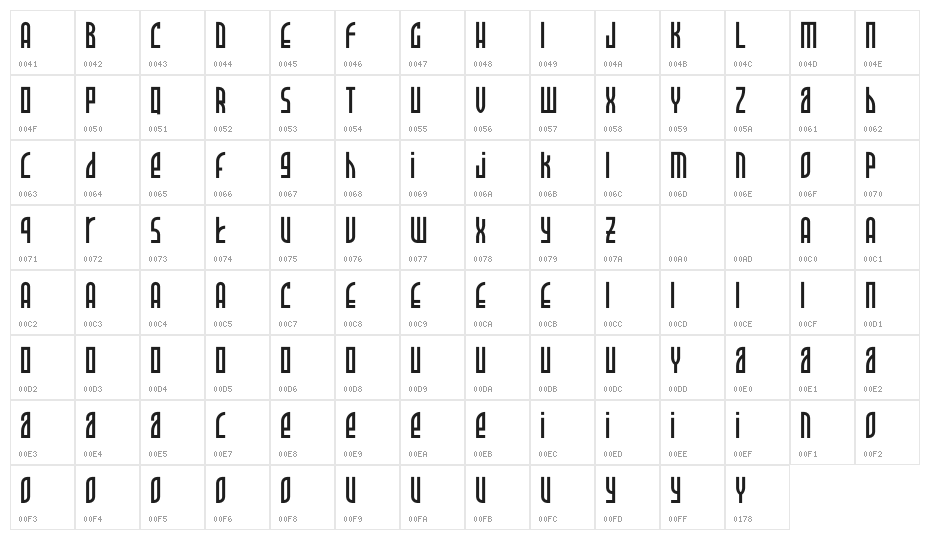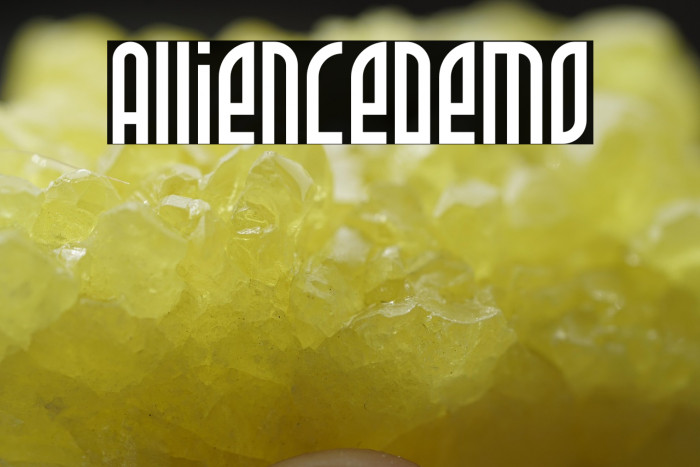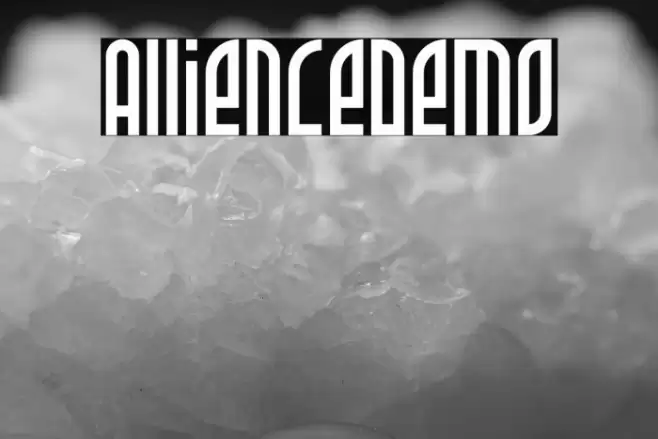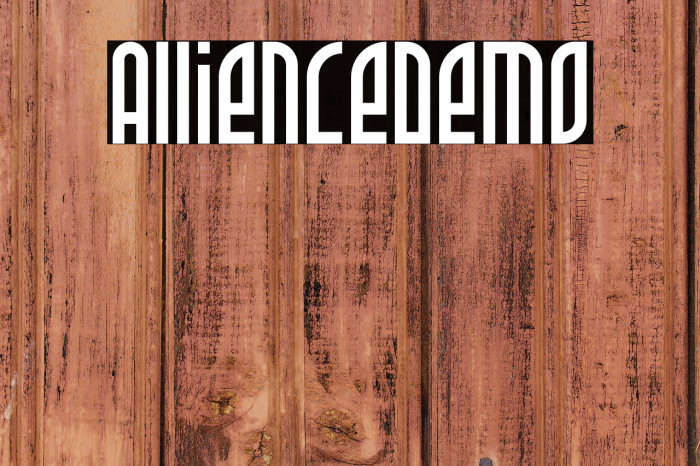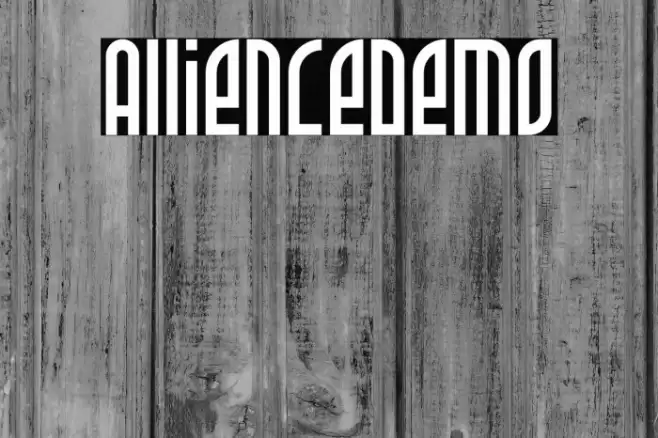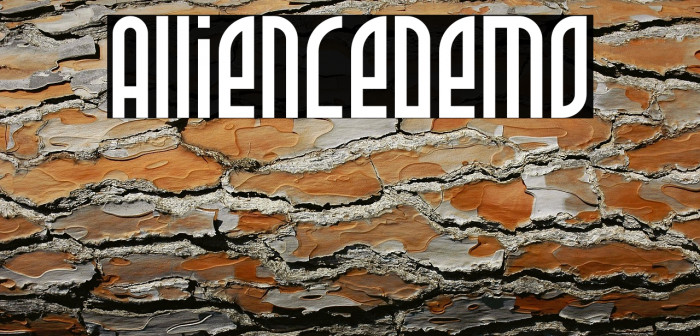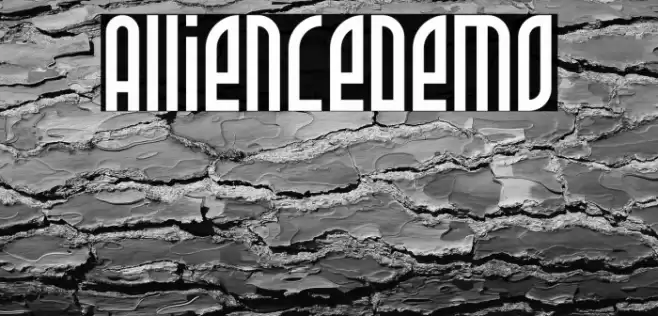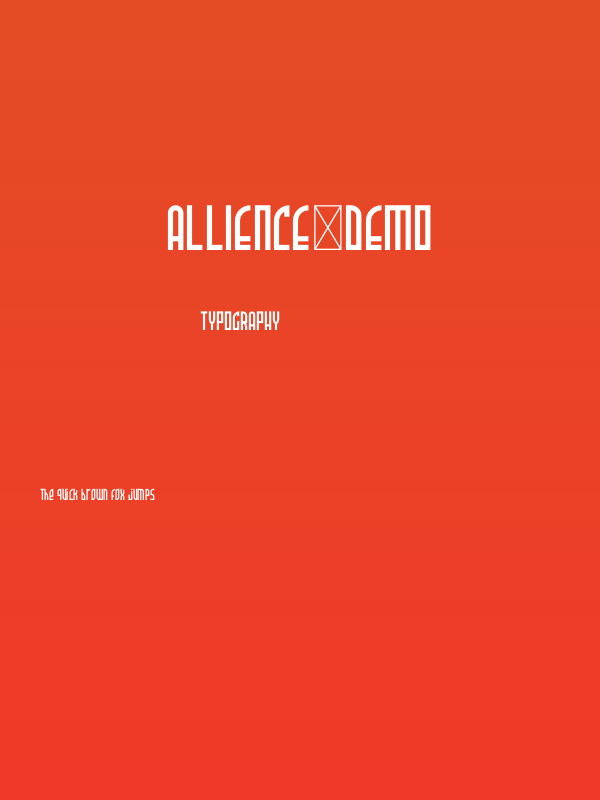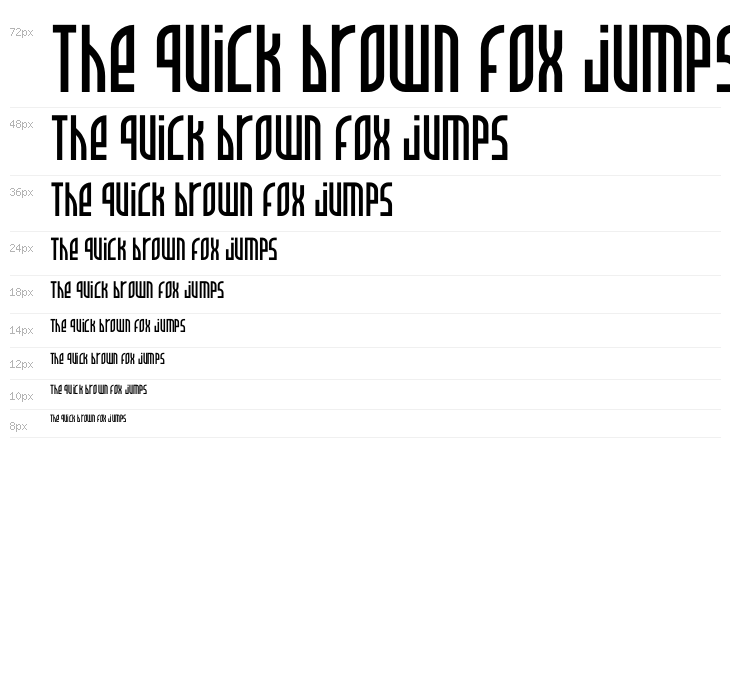
Allience-Demo Font
Allience-Demo Description
This font features a bold and modern design with a geometric structure. The uppercase letters are tall and narrow, with a consistent stroke width that gives a clean and streamlined appearance. The lowercase letters maintain the same geometric style, offering a cohesive look across different text cases. The font lacks traditional serifs, emphasizing a contemporary and minimalistic aesthetic. The characters are tightly spaced, enhancing the compact and efficient use of space, making it suitable for impactful headlines and titles. The overall style is distinctly modern, with a hint of futuristic appeal, making it versatile for various design projects.